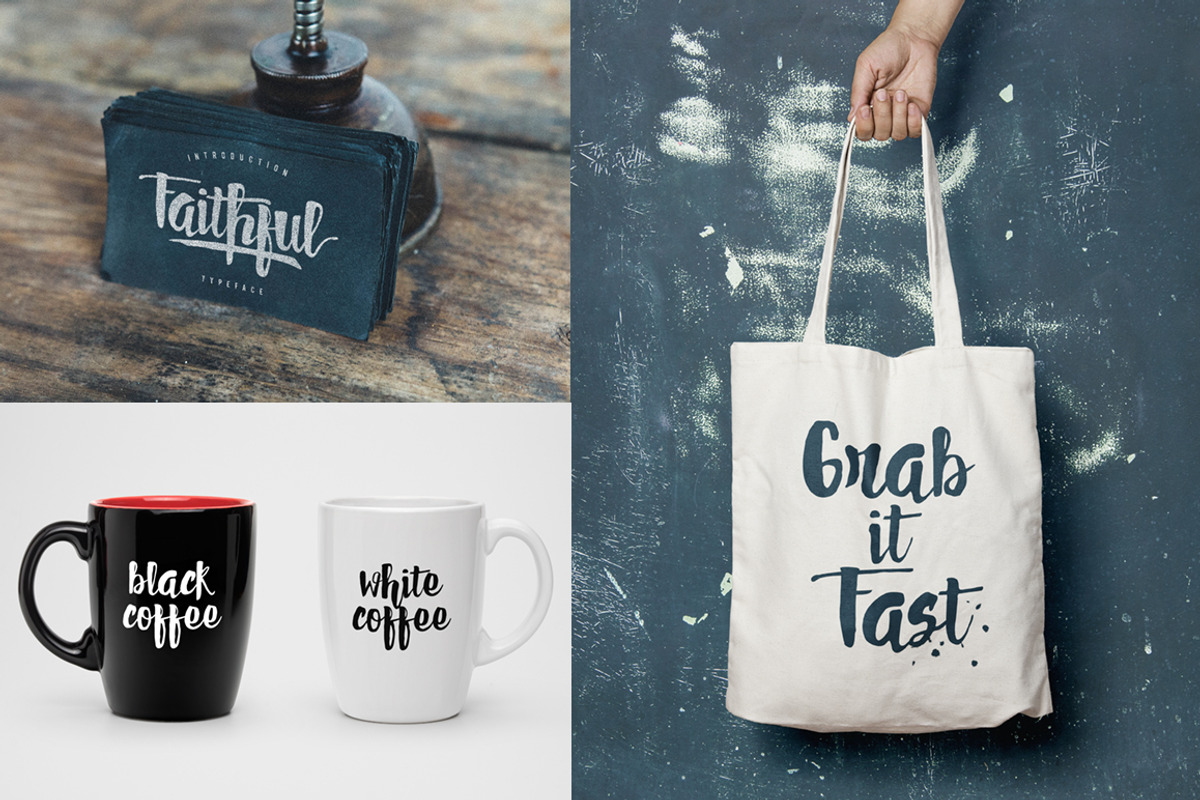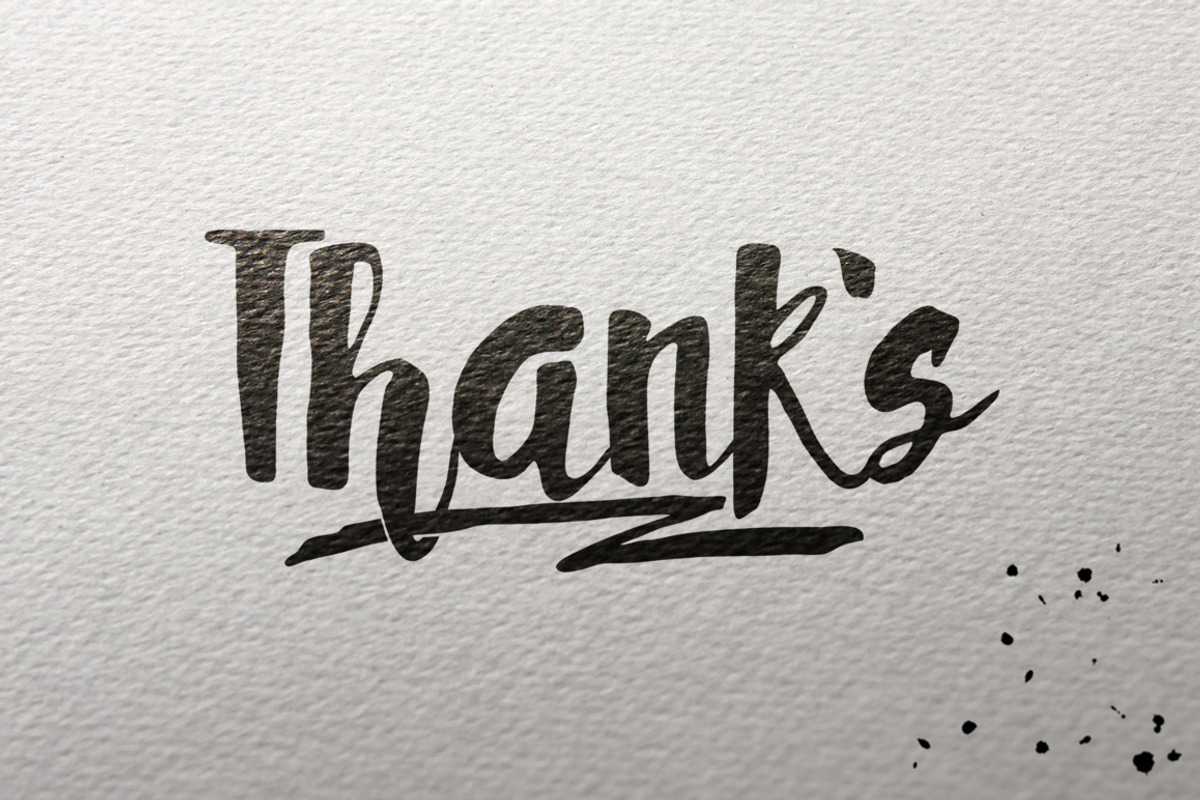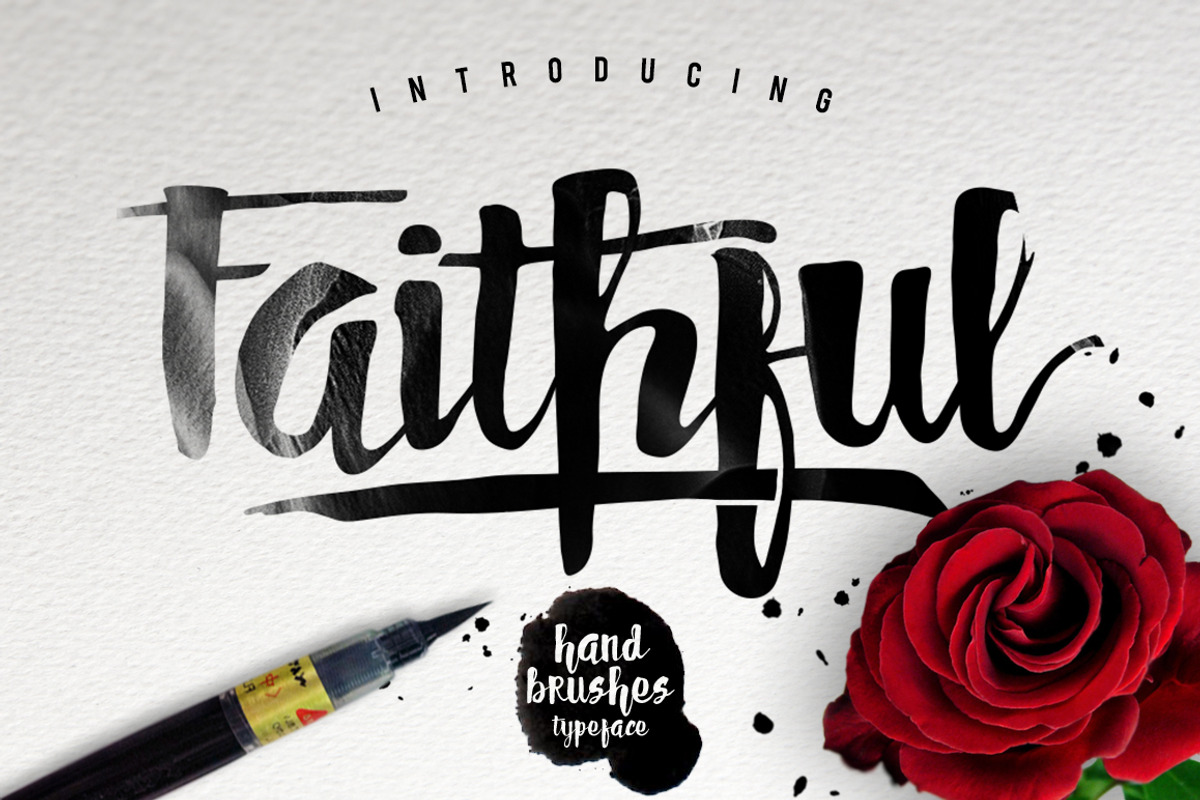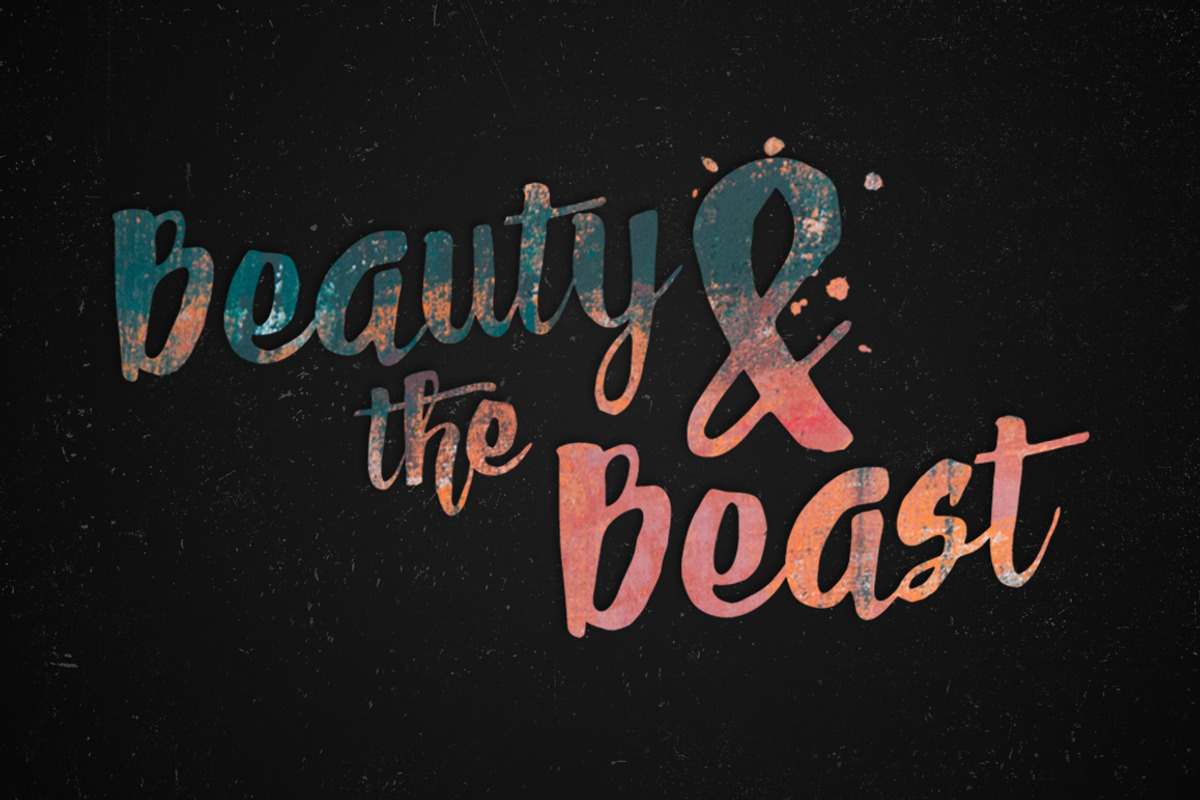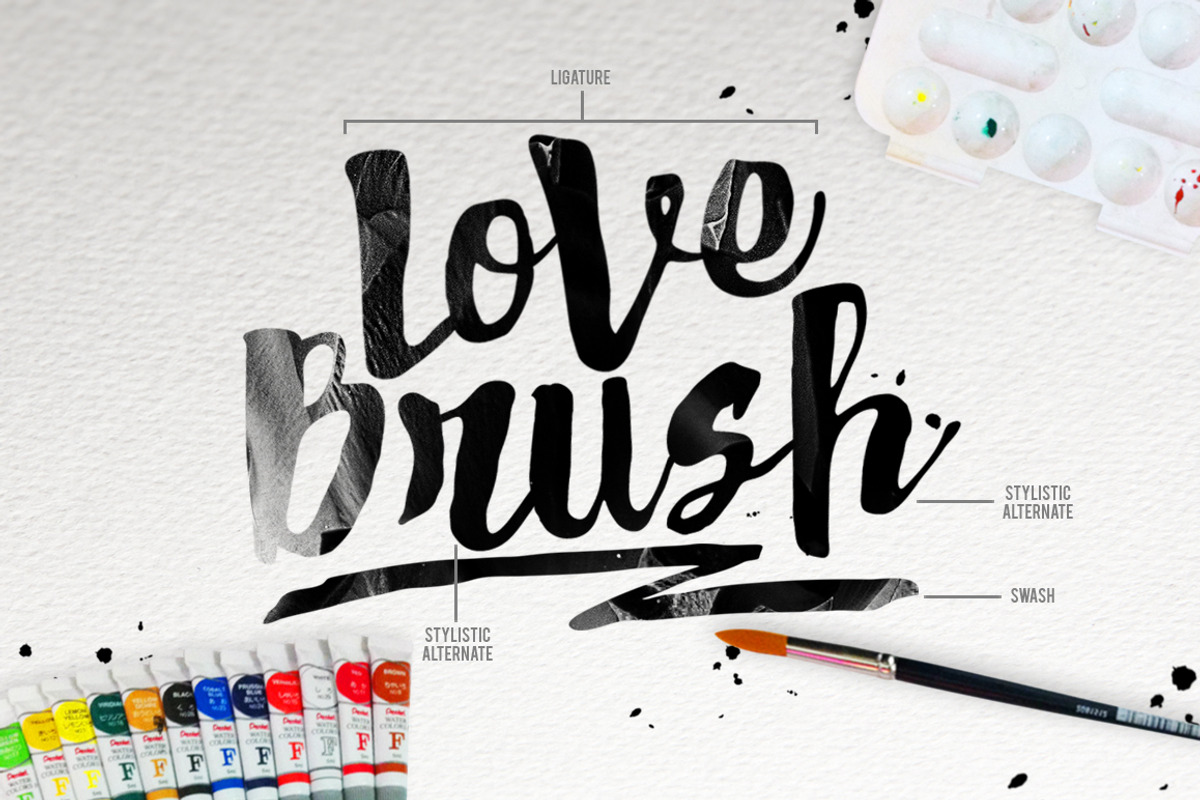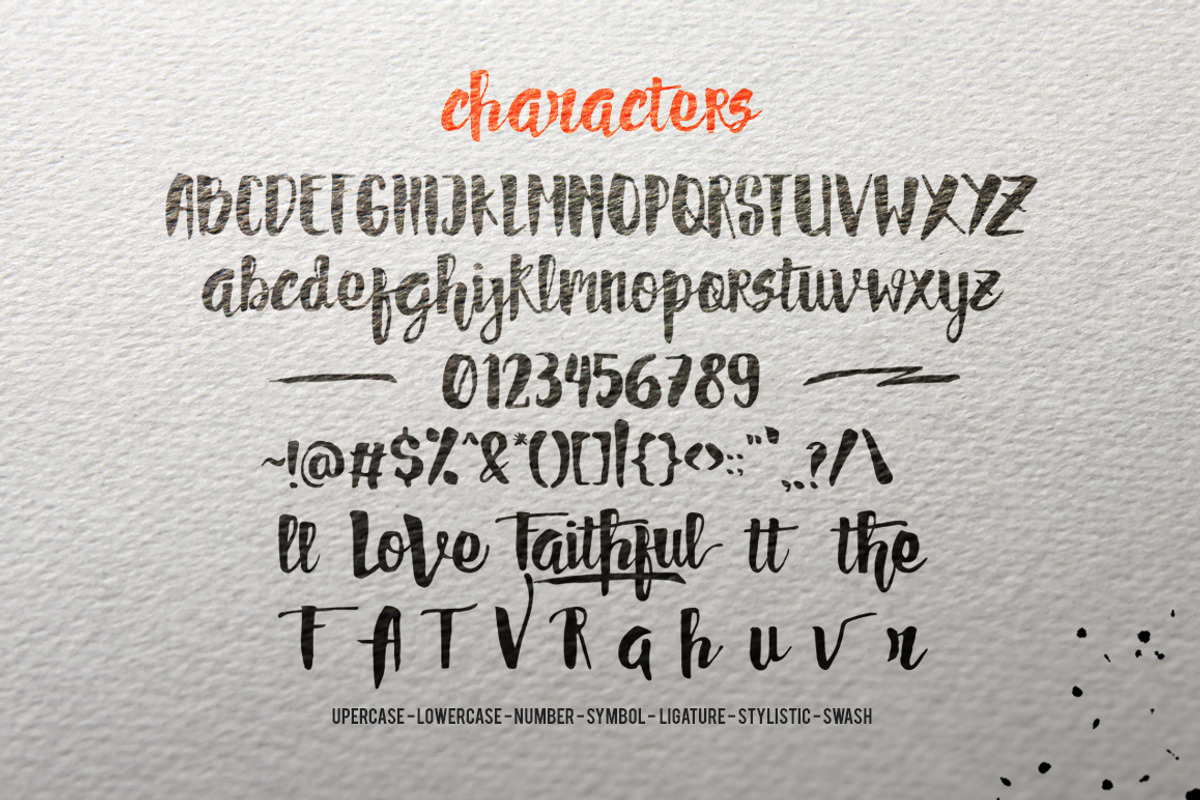
FAITHFUL Typeface
FAITHFUL Typeface by giemons™ is a font selected for branding, posters, packaging, typography.
Why FAITHFUL Typeface is worth a look
FAITHFUL Typeface by giemons™ fits naturally into Branding, posters, packaging, typography.